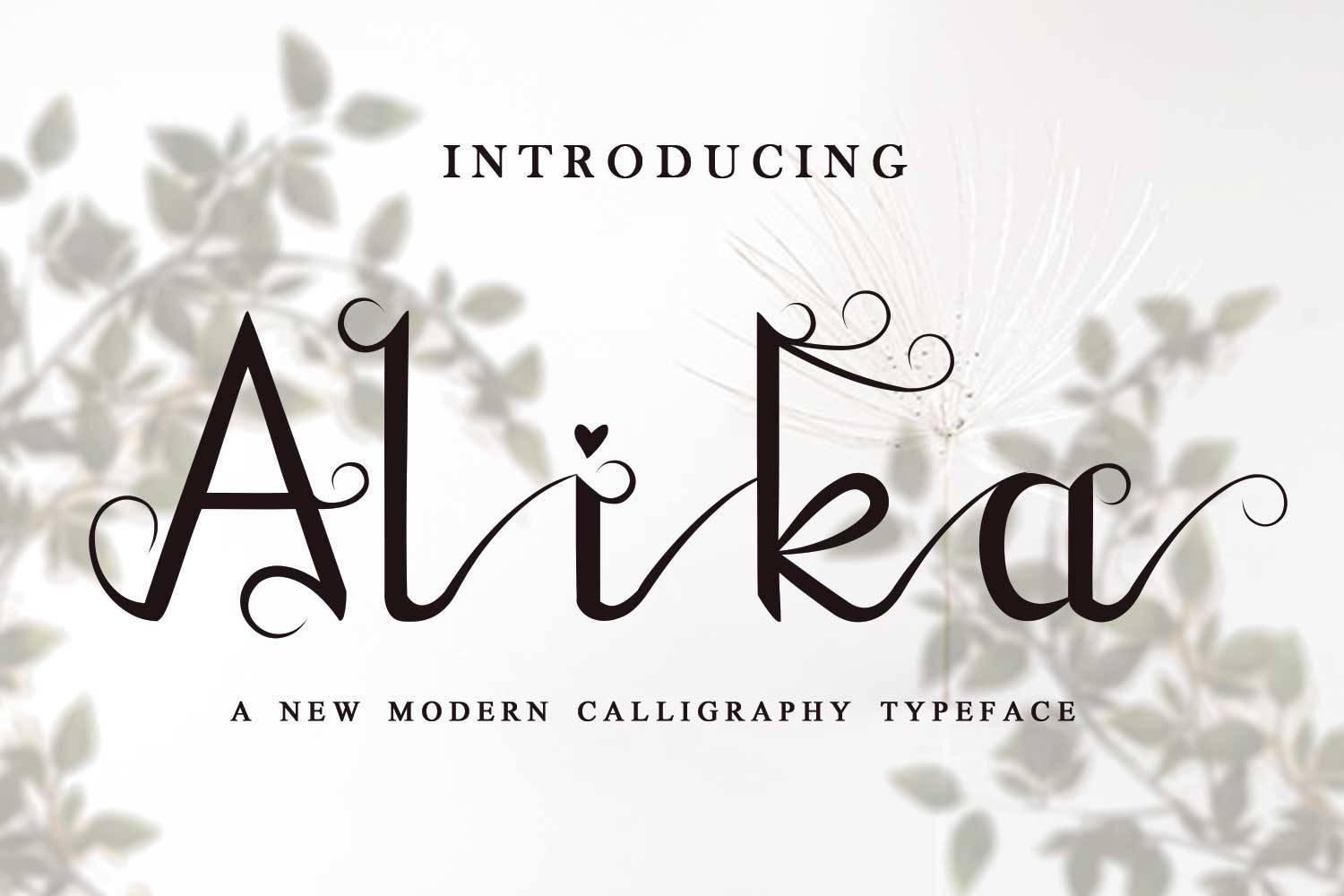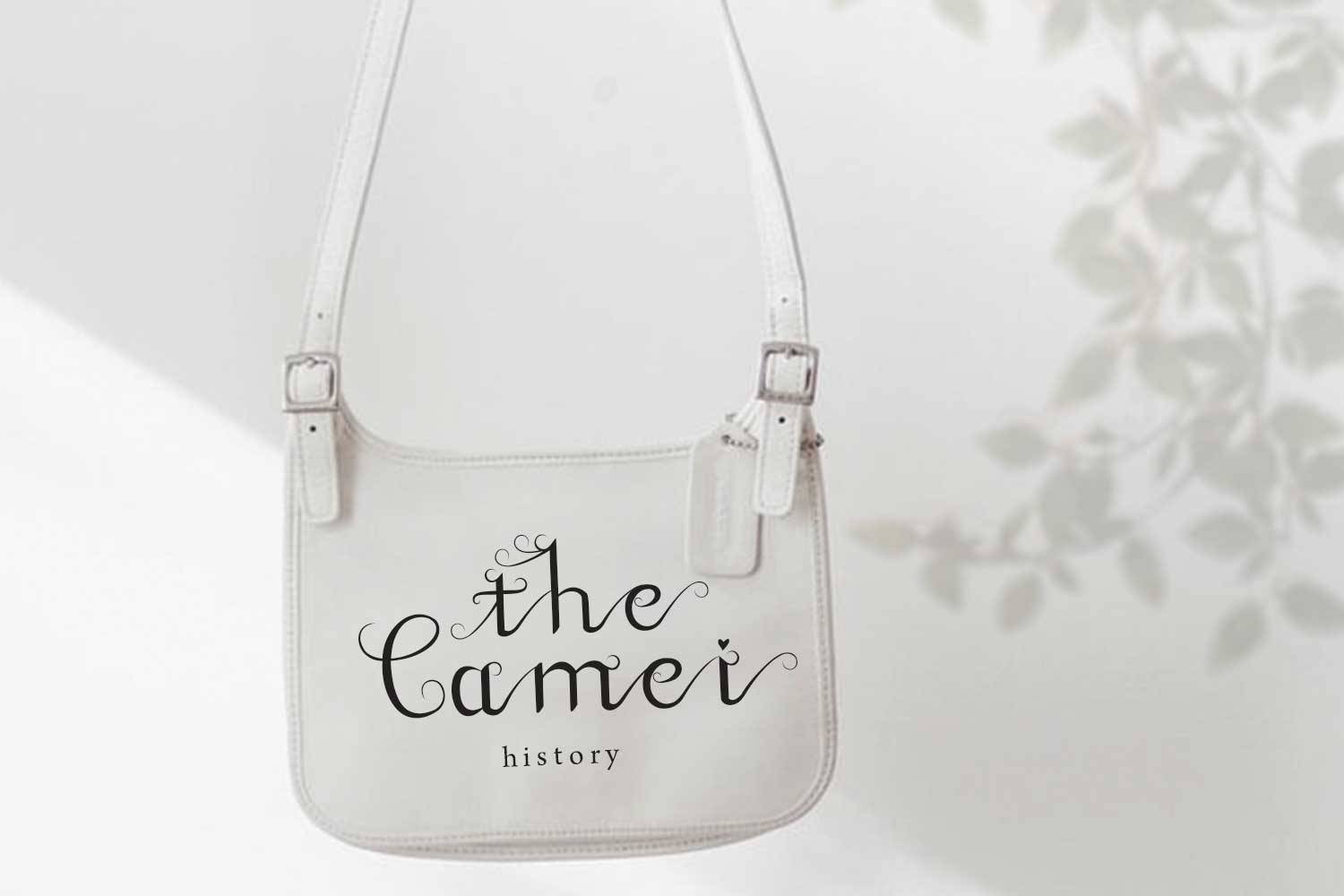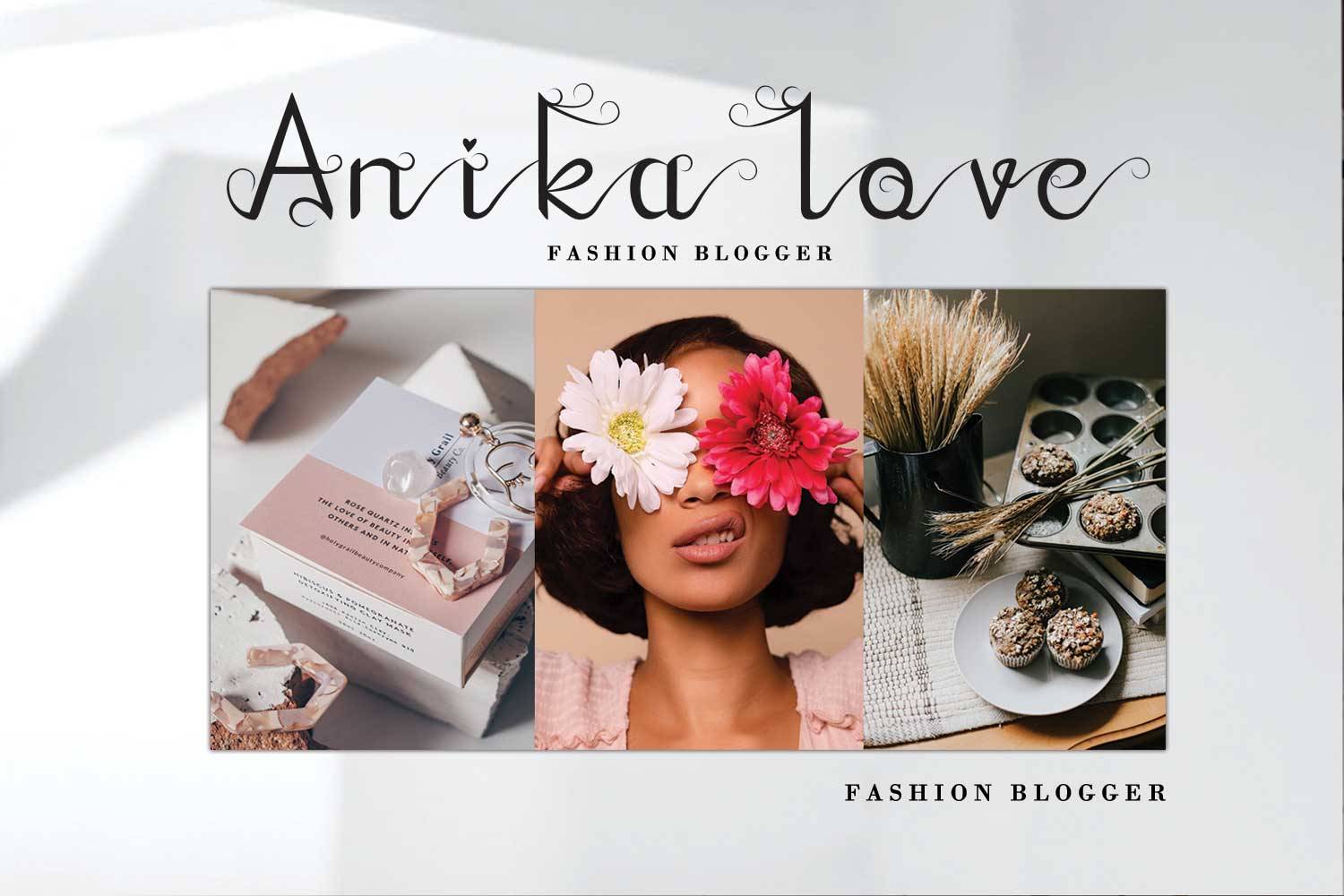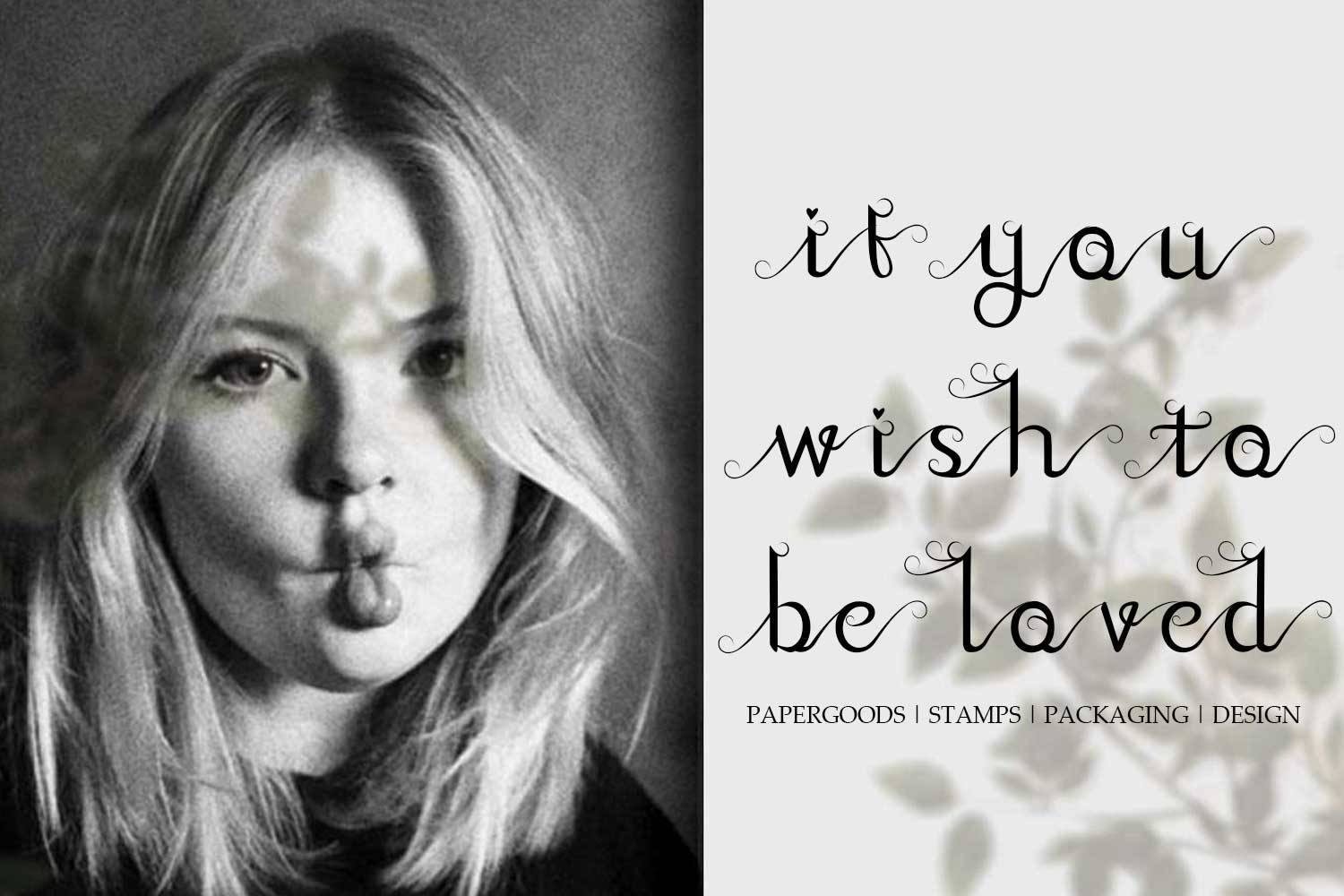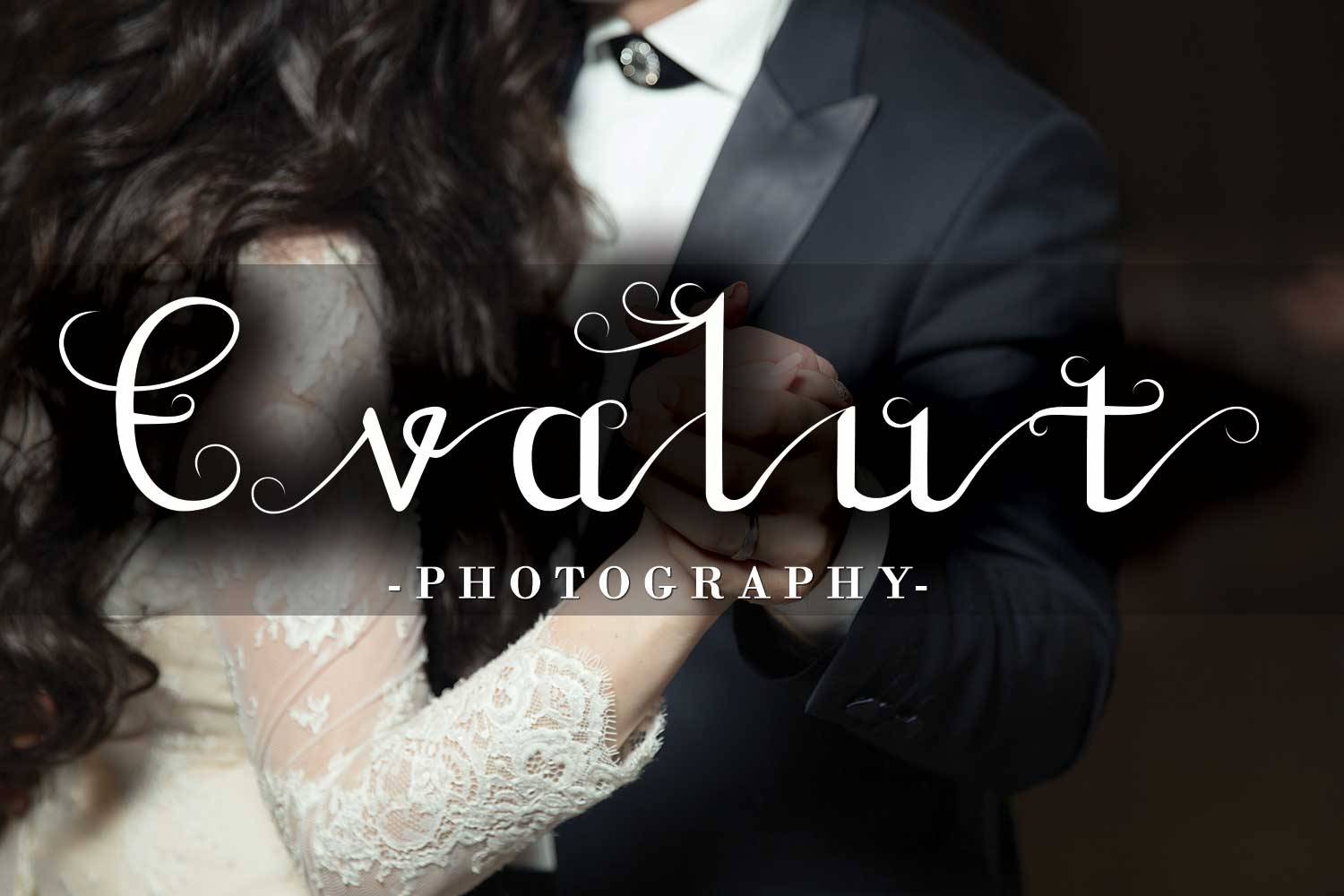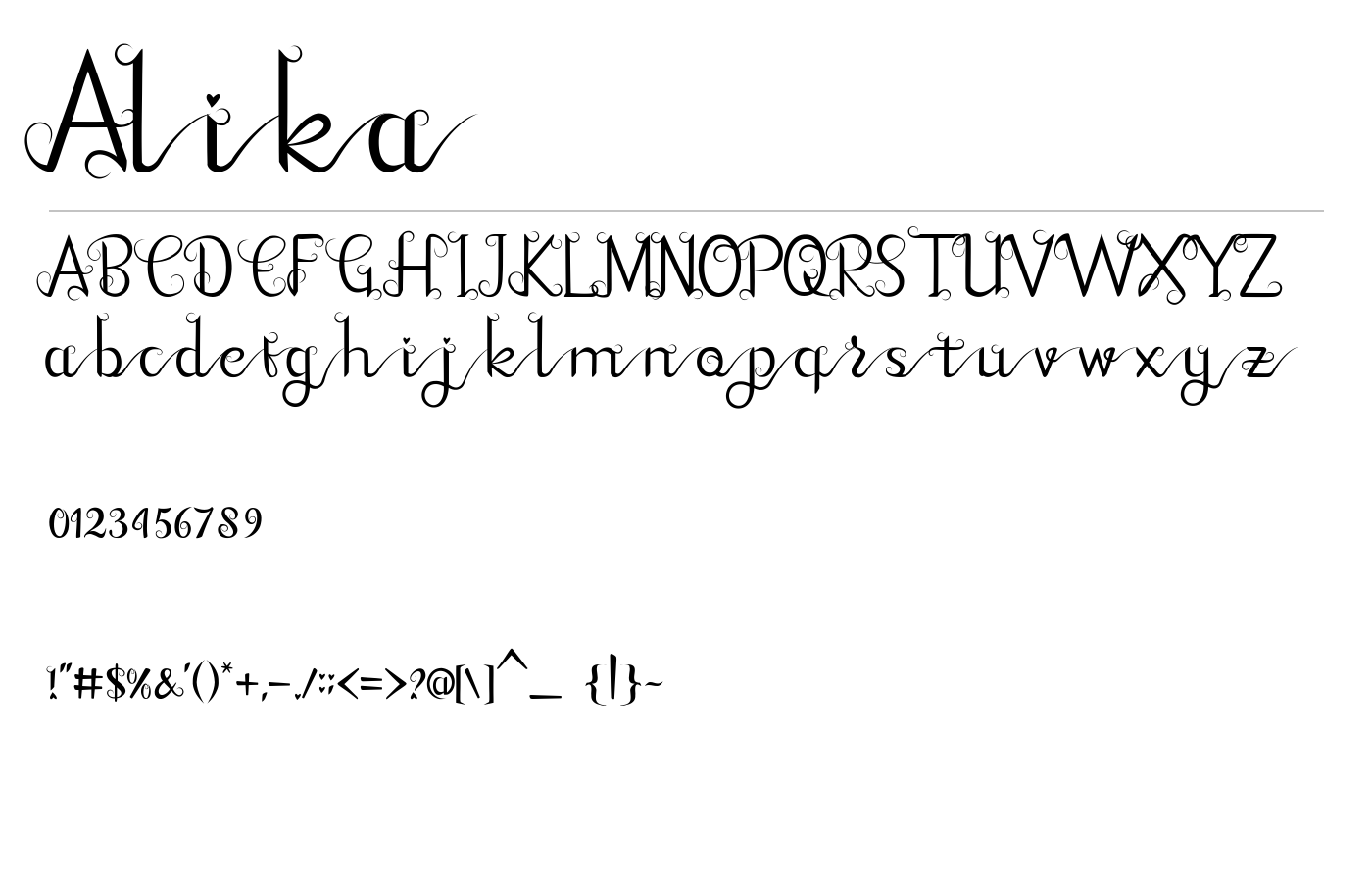
Alika is an elegant serif font with decorative, swirling flourishes that give it a whimsical and romantic feel. Its thin strokes and stylish curls make it perfect for luxurious branding, wedding invitations, and creative headlines where a touch of elegance and personality is desired. With its unique blend of sophistication and playfulness, Alika stands out beautifully in designs that seek to combine artful detail with readability.
Alika Font
About Alika Font